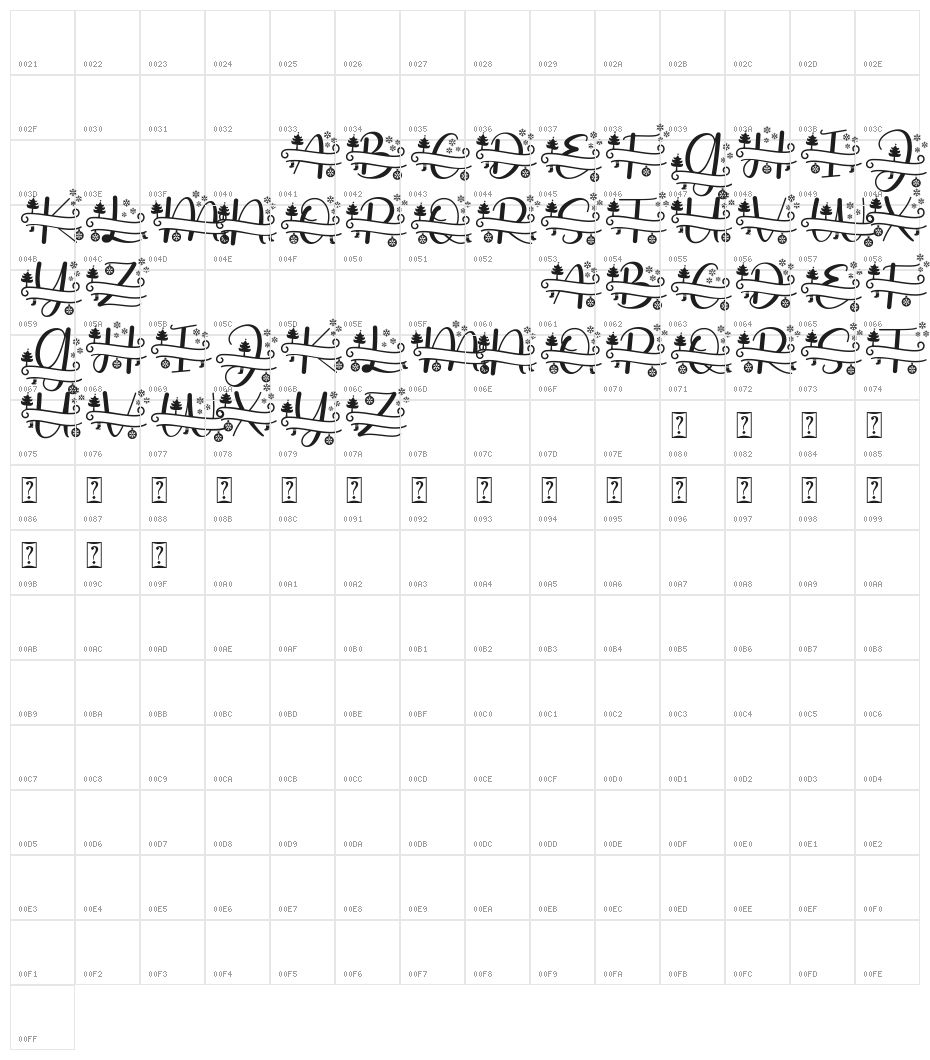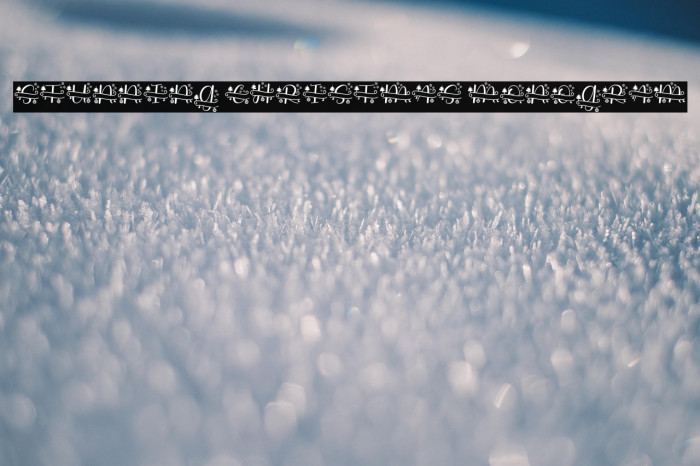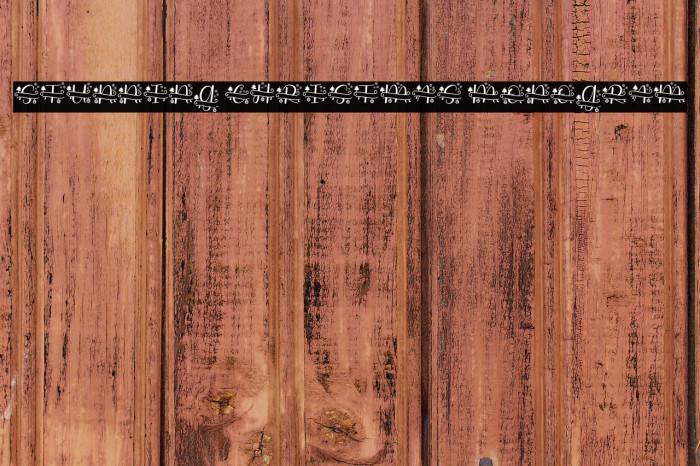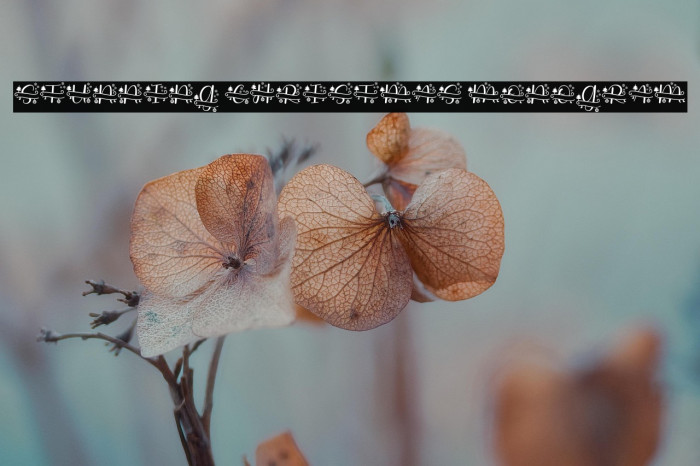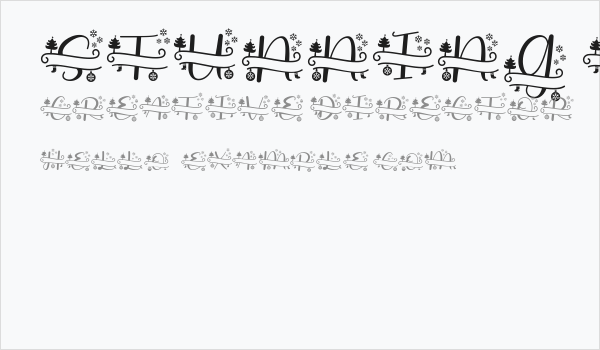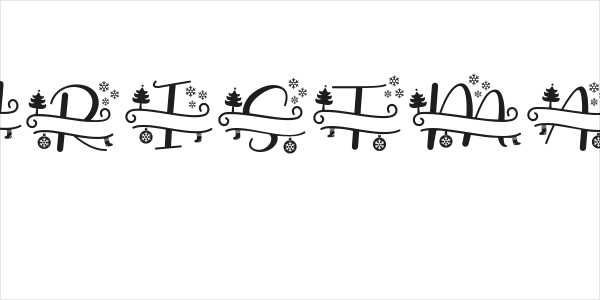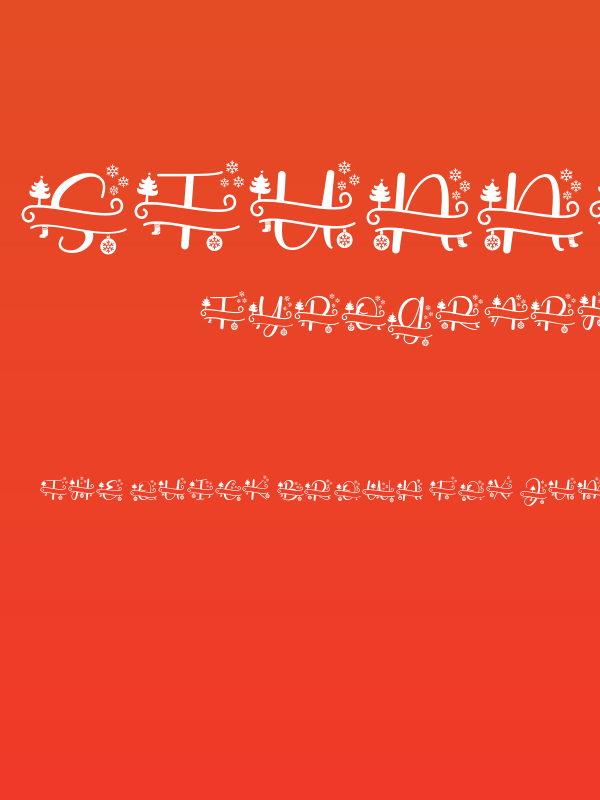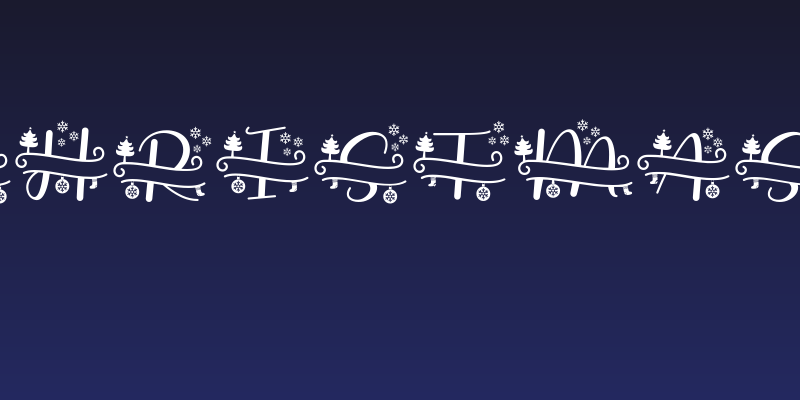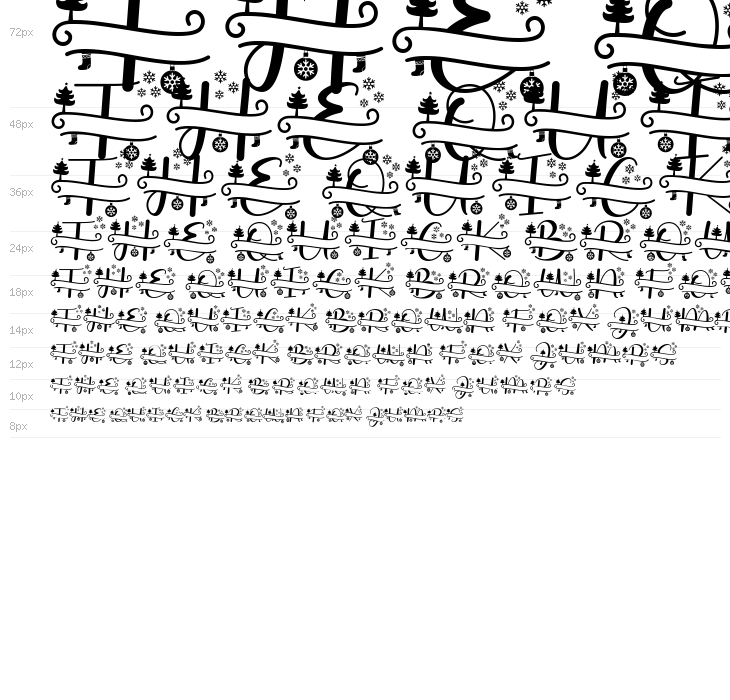
Stunning Christmas Monogram Font
Stunning Christmas Monogram Description
This decorative font features intricate holiday-themed embellishments, making it perfect for festive occasions. Each character is adorned with elements like stars, snowflakes, and Christmas trees, creating a whimsical and joyful appearance. The letters are bold and ornate, with a playful yet elegant style that captures the spirit of the holiday season. The font's unique design elements make it stand out, adding a touch of magic and celebration to any project. Its detailed and artistic nature makes it ideal for creating eye-catching designs that evoke warmth and cheer.
| Use Case | Headlines, Logos, Decorative text |
| Proposed Projects | Ideal for holiday cards, festive invitations, seasonal branding, and decorative posters. |